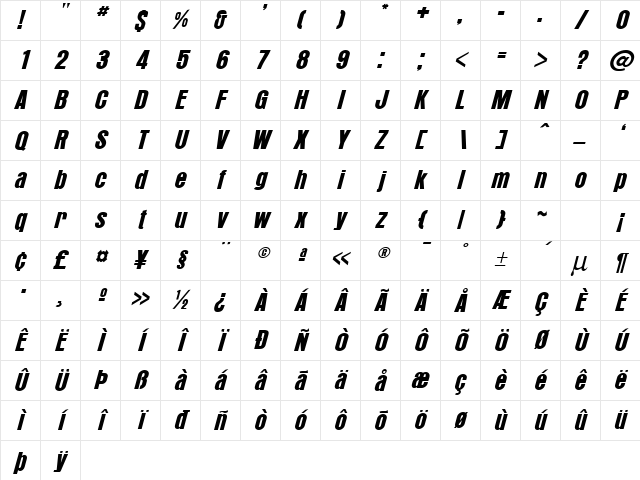
Aurora-Italic Normal Free Font
Aurora-Italic Normal
Design Context for Aurora-Italic
Aurora-Italic is a composed and adaptable typeface that performs quietly and consistently across a wide range of design contexts. The slanted form adds forward momentum and visual energy.
Pro Tip: Use Aurora-Italic for emphasis, pull quotes, and subheadings where its slanted energy can add rhythm to the layout.